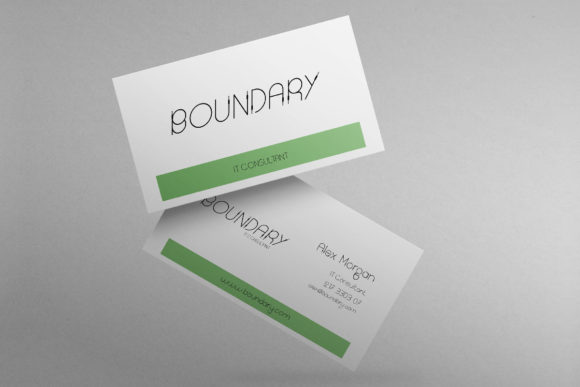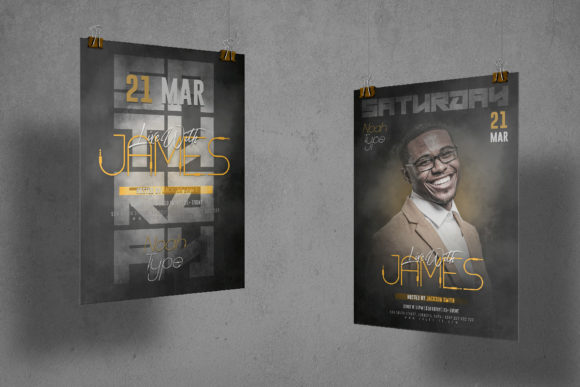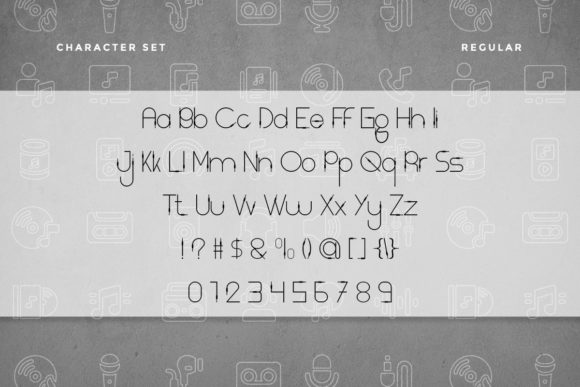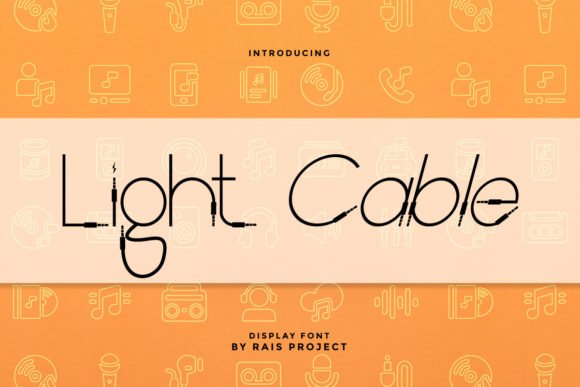
Introduction to Light Cable Font
Light Cable is a thin and neat display font with unique cable jacks on each character.
Dainty and joyful, this font will be ideal for writing wedding invitations, cards or any other design that may need a romantic, personalized touch .
Key Features of Light Cable Font
Why Choose Light Cable Font?
Light Cable Font offers exceptional quality and versatility, making it a valuable addition to your design toolkit. Whether you’re creating for personal projects or commercial use, Light Cable Font delivers professional results.